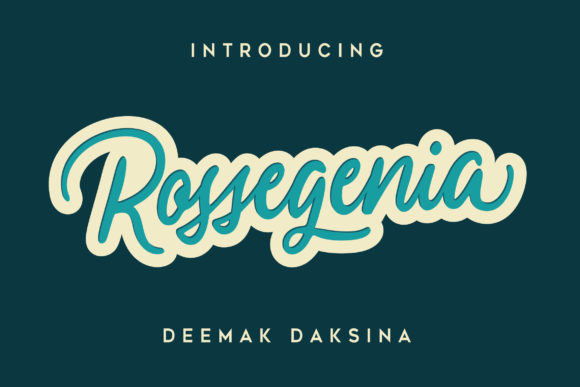
Step into the world of sophistication and grace with Rossegenia, a remarkable script font that will infuse your designs with an air of elegance and charm. Its sweeping curves and delicate lines exude a timeless beauty, reminiscent of the finest calligraphy. Experience the allure of Rossegenia, a font crafted to elevate your designs to new heights.
Immerse yourself in the versatility of Rossegenia, a font that effortlessly adapts to a myriad of design projects. Whether you're crafting captivating logos, alluring branding, stunning wedding invitations, or heartfelt signatures, Rossegenia rises to the occasion, adding a touch of refinement and sophistication to every creation. Let your imagination soar as you explore the endless possibilities that await with Rossegenia.
Unleash the power of expression with Rossegenia, the font that speaks to the heart. Its enchanting characters dance across the page, conveying emotions and messages with unparalleled grace. Whether you're designing heartfelt invitations, crafting personalized stationery, or creating captivating social media posts, Rossegenia has the ability to stir emotions and leave a lasting impression. Let your words come alive with Rossegenia, a font that captivates and inspires.
Welcome to the world of Rossegenia, where creativity knows no bounds. This exceptional font is the perfect companion for fashion brands seeking to make a bold statement. Its elegant curves and stylish flourishes add a touch of glamour and exclusivity to any design. Showcase your products, create eye-catching logos, or design promotional materials that exude luxury and sophistication. With Rossegenia, your fashion brand will shine brighter than ever before.